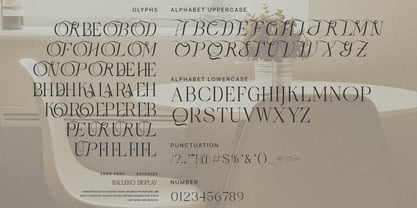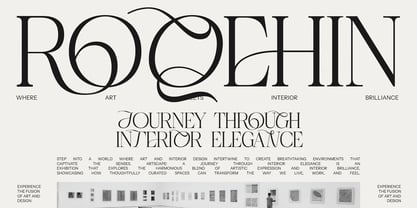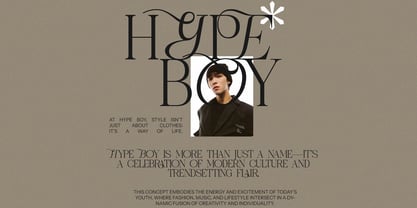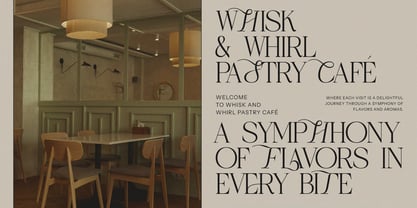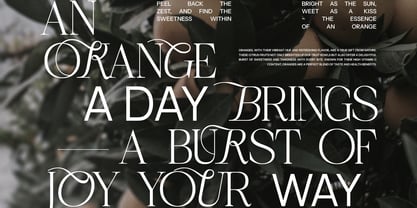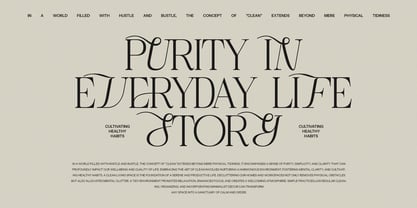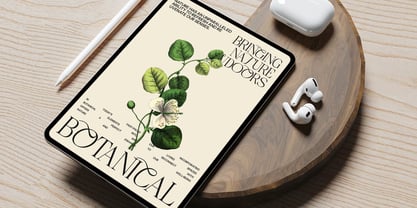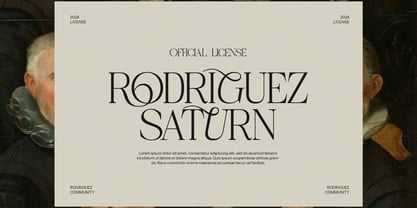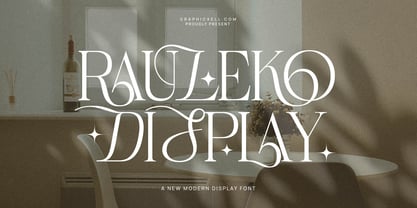
Rauleko
by Graphicxell
• Rauleko – Stylish Serif & Script Font Duo
Rauleko is a modern and stylish font that blends an elegant serif with a smooth script. It brings a beautiful mix of charm and class to every project. With clean lines and graceful strokes, this font adds both beauty and function.
Designed for high-end looks, Rauleko gives your work a polished and professional feel. Its mix of strong shapes and flowing curves makes it perfect for logos, branding, or wedding invites. The script style adds a personal and romantic touch, while the serif keeps your design clean and refined.
In addition, Rauleko includes a variety of ligatures and alternate characters. These features give you more creative control and allow your designs to feel custom-made. As a result, your text will always stand out and look unique.
Great For:
• 💍 Wedding invitations and romantic stationery
• 🛍️ Fashion, beauty, and boutique branding
• 📚 Magazines, blogs, and website headlines
• 🖋️ Product labels and elegant packaging
• 🖥️ Canva templates, ads, and social posts
Whether you're designing for a luxury brand or a personal event, Rauleko gives your text a stylish edge. It's easy to use and perfect for both print and digital projects.
So, if you're looking for a font that feels elegant, modern, and functional, Rauleko is the right choice. It’s built to make your work more beautiful and easier to read—every time.